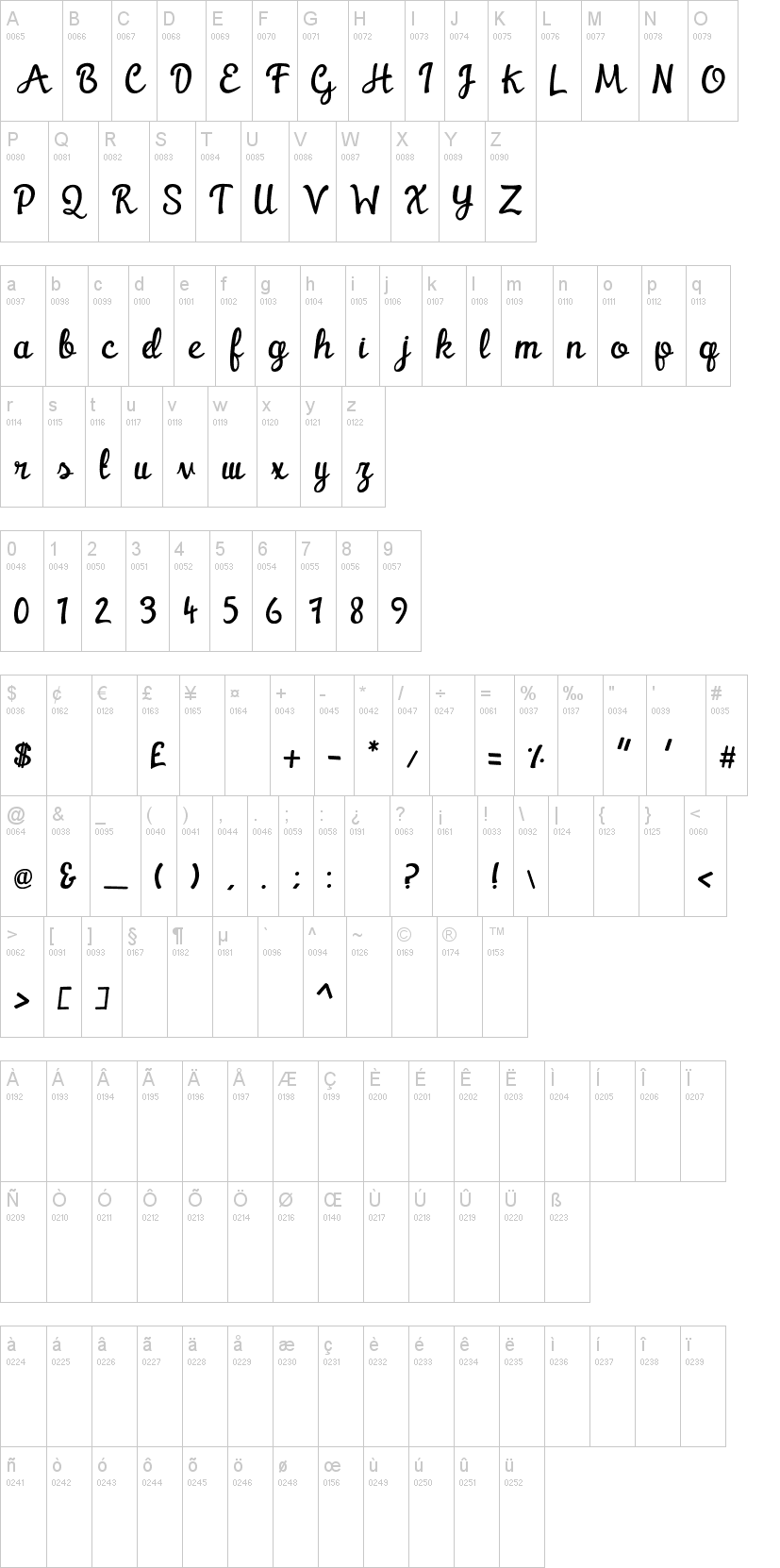
Note of the authorWatermelon is a casual script font that I have been working on aside freelancing projects. I set out to create a working script font not really knowing what was in front of me. Im hugely interested in typography and having experimented with font creation before, it was a challenge.